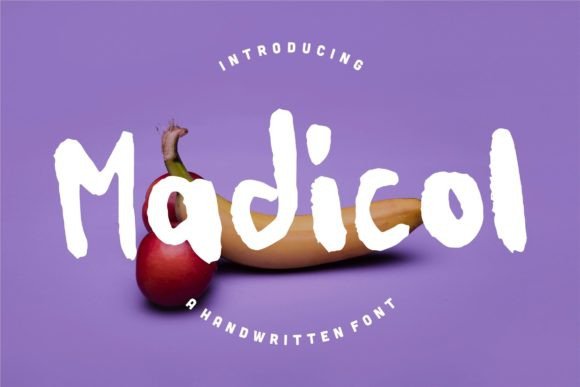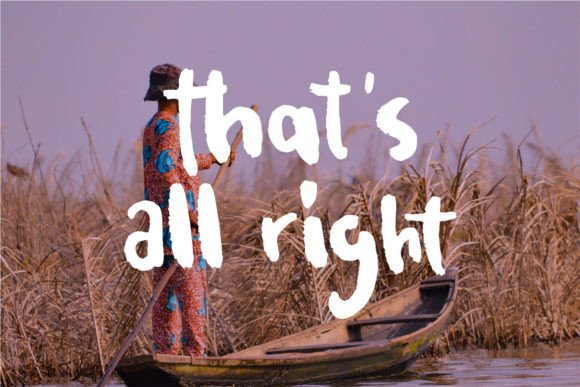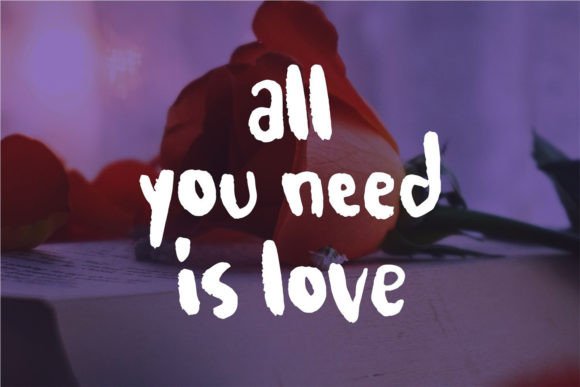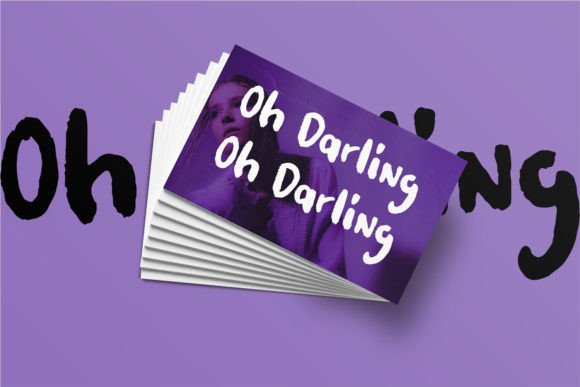
About Madicol Font
Madicol is a fun and bold handwritten font. Masterfully designed to become a true favorite, this font has the potential to bring each of your creative ideas to the highest level!